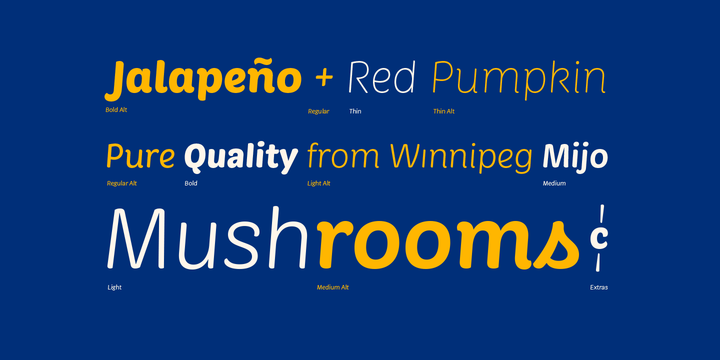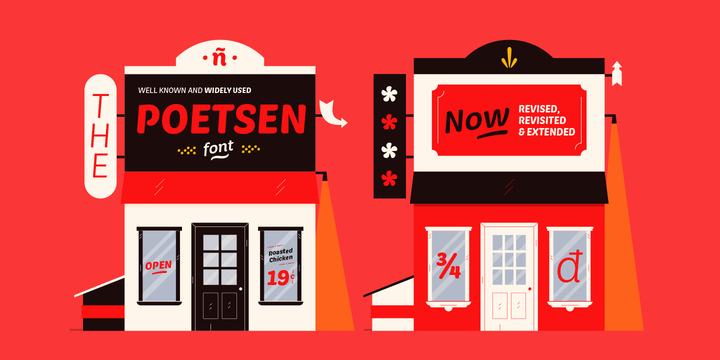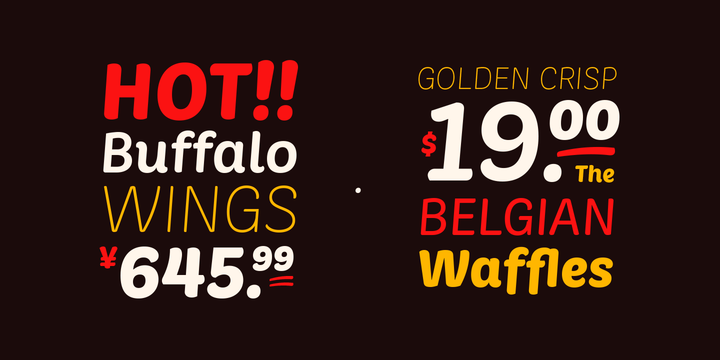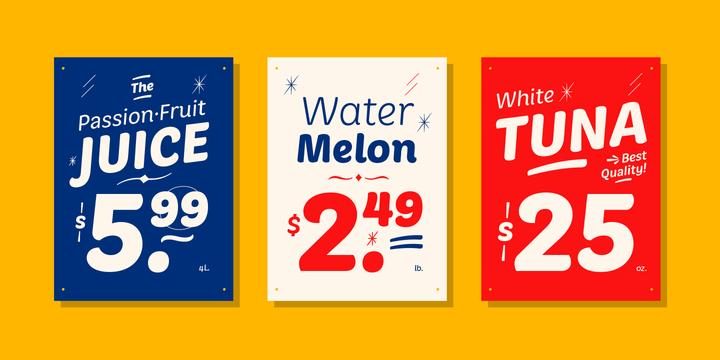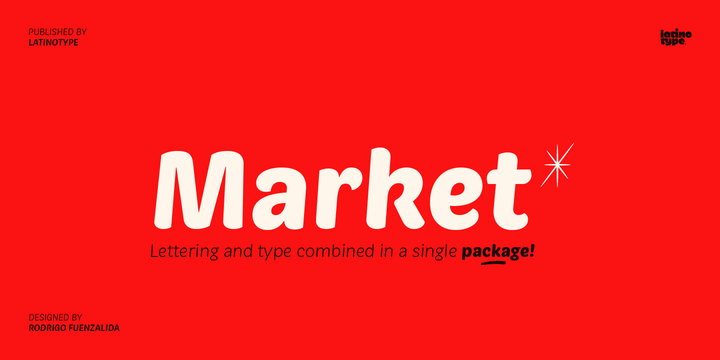
Market Font Family
Introducing Market! It is designed and shared by Latinotype. Market—inspired by hand painted grocery store signs—is a font with a distinctive appearance which combines the style of “casual script” lettering alphabets with characteristics of classical Roman lettering into a single typeface. These elements allow you to use the font for both high-impact titles and small body text.